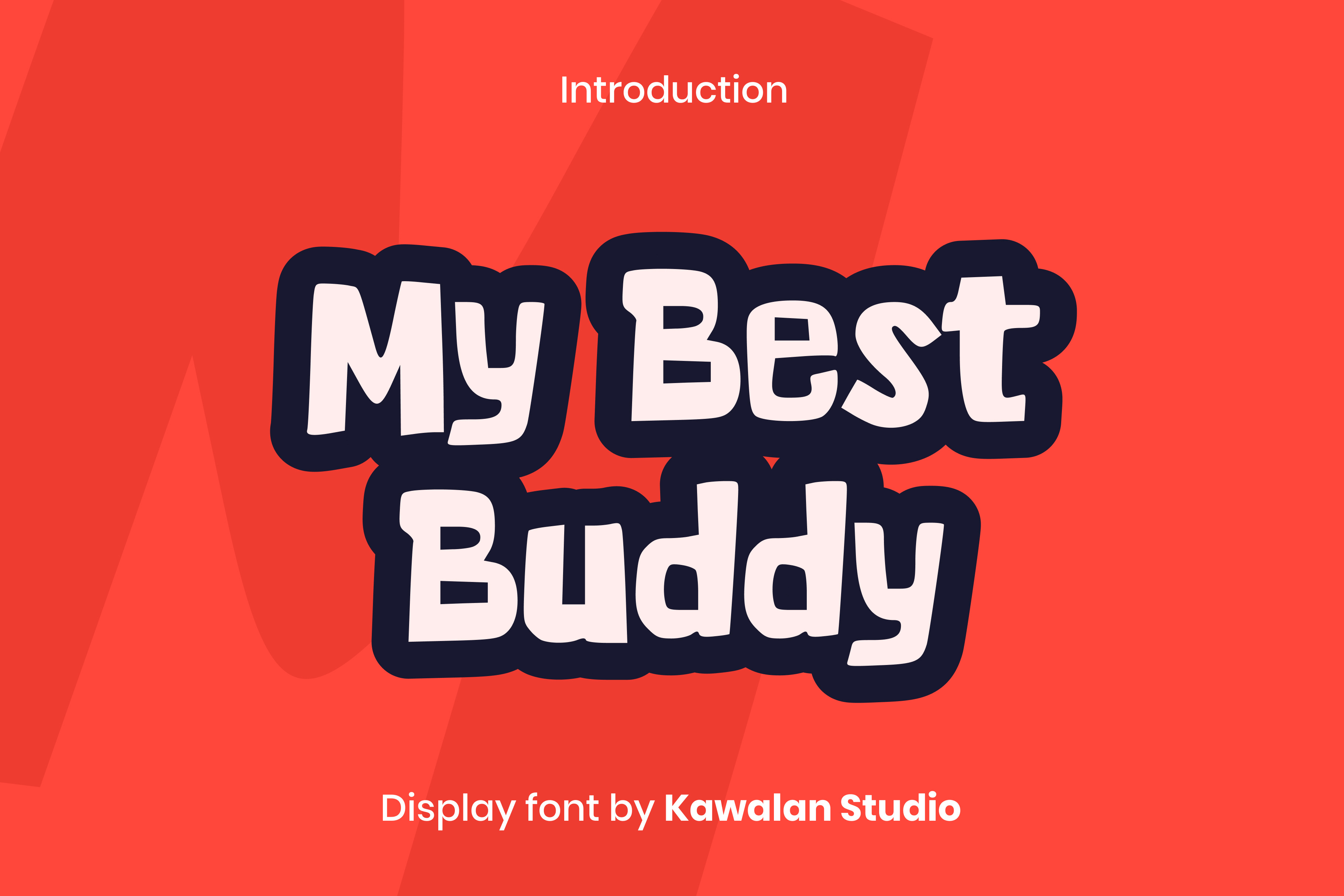
My Best Buddy | Bold Display Font
Introduce, My Best Buddy , Bold display font hand letterred for your design project like social media headings, cover, logo type, book cover and etc